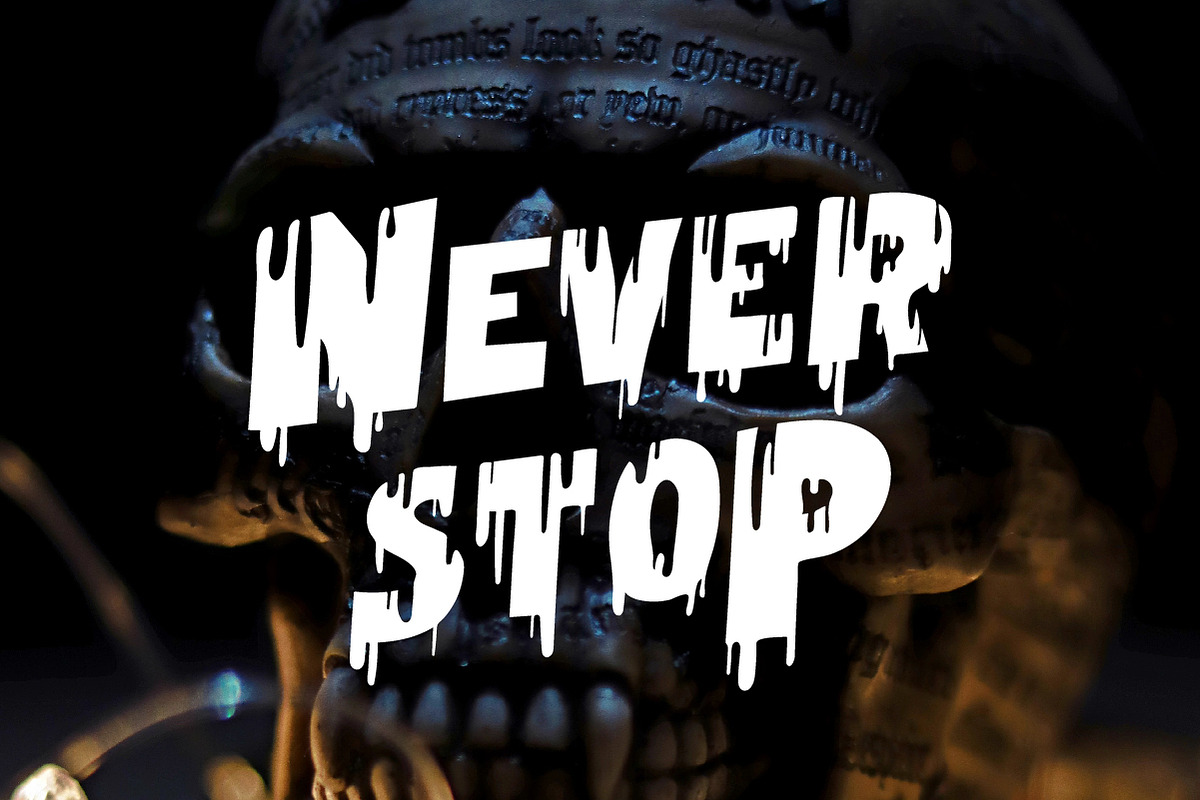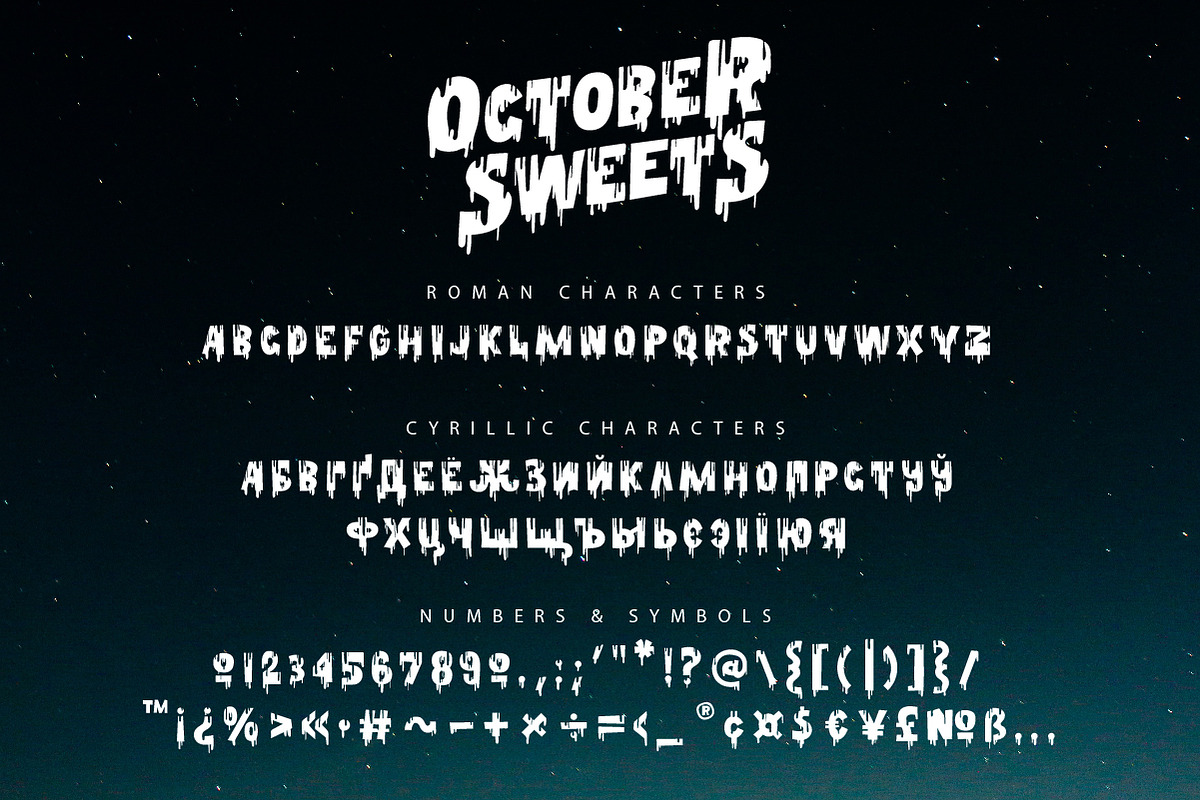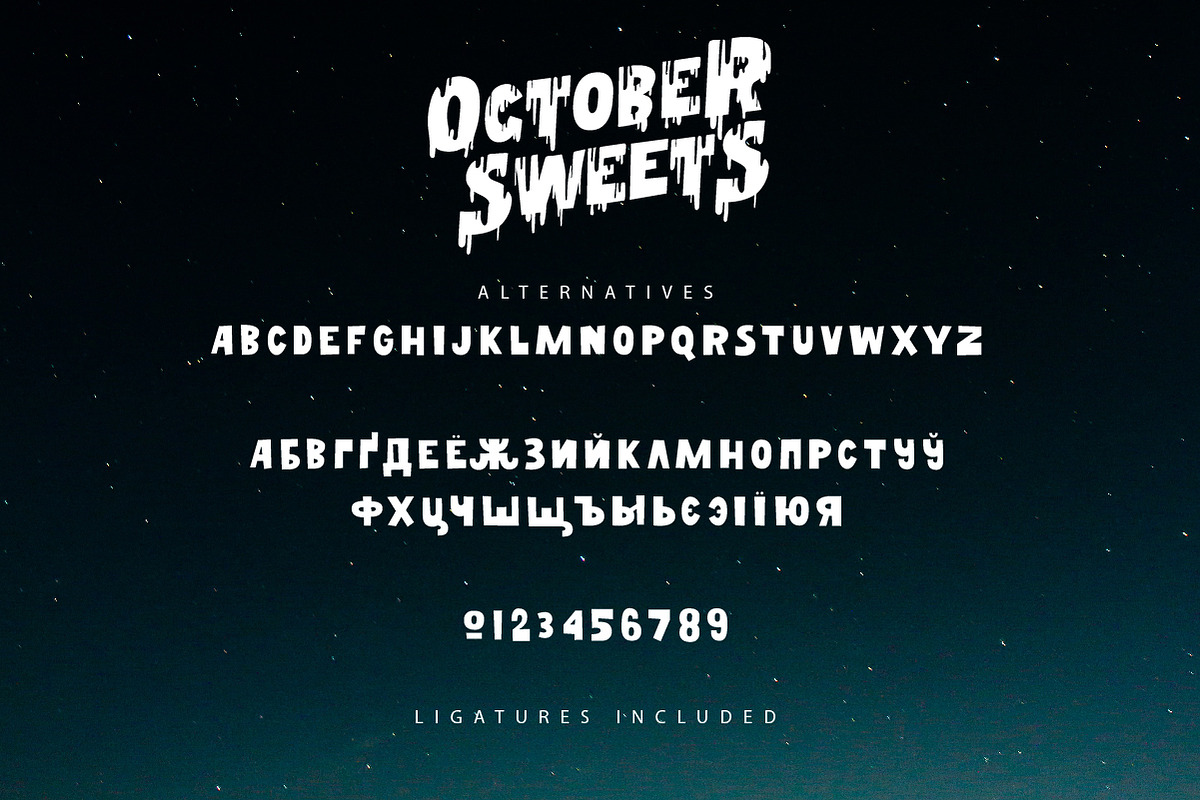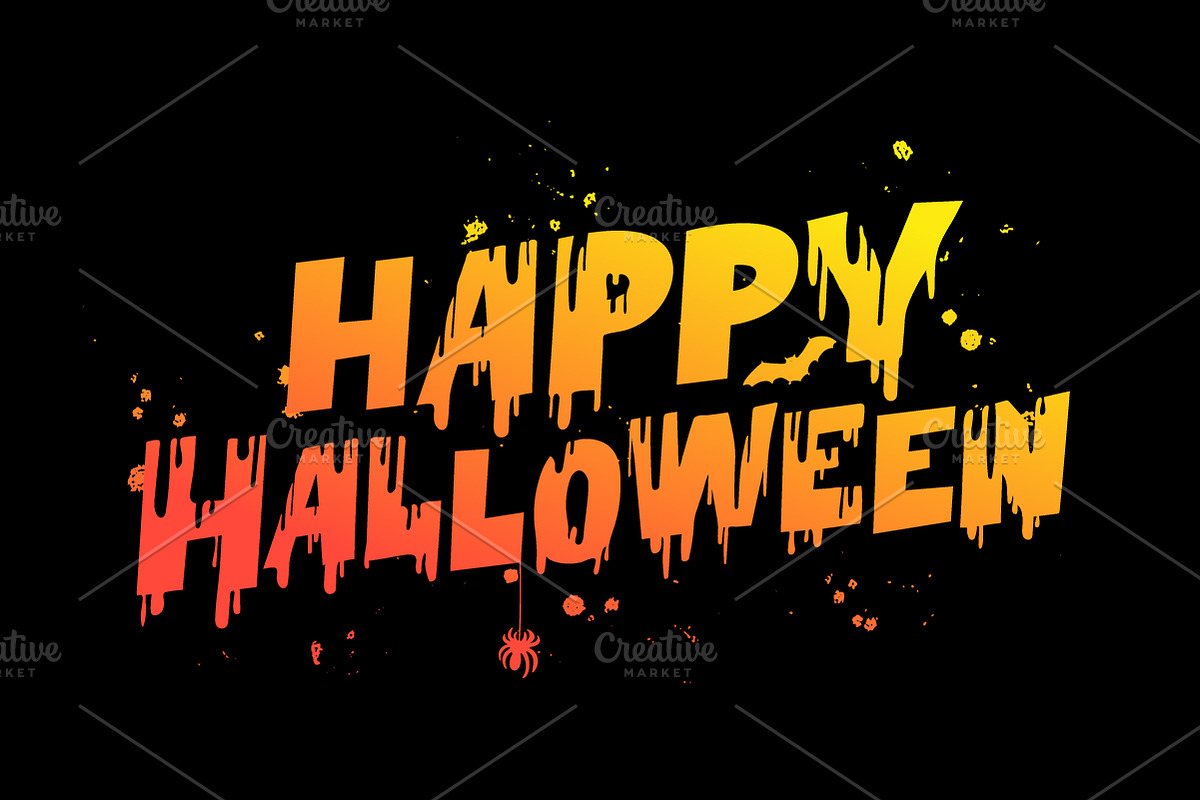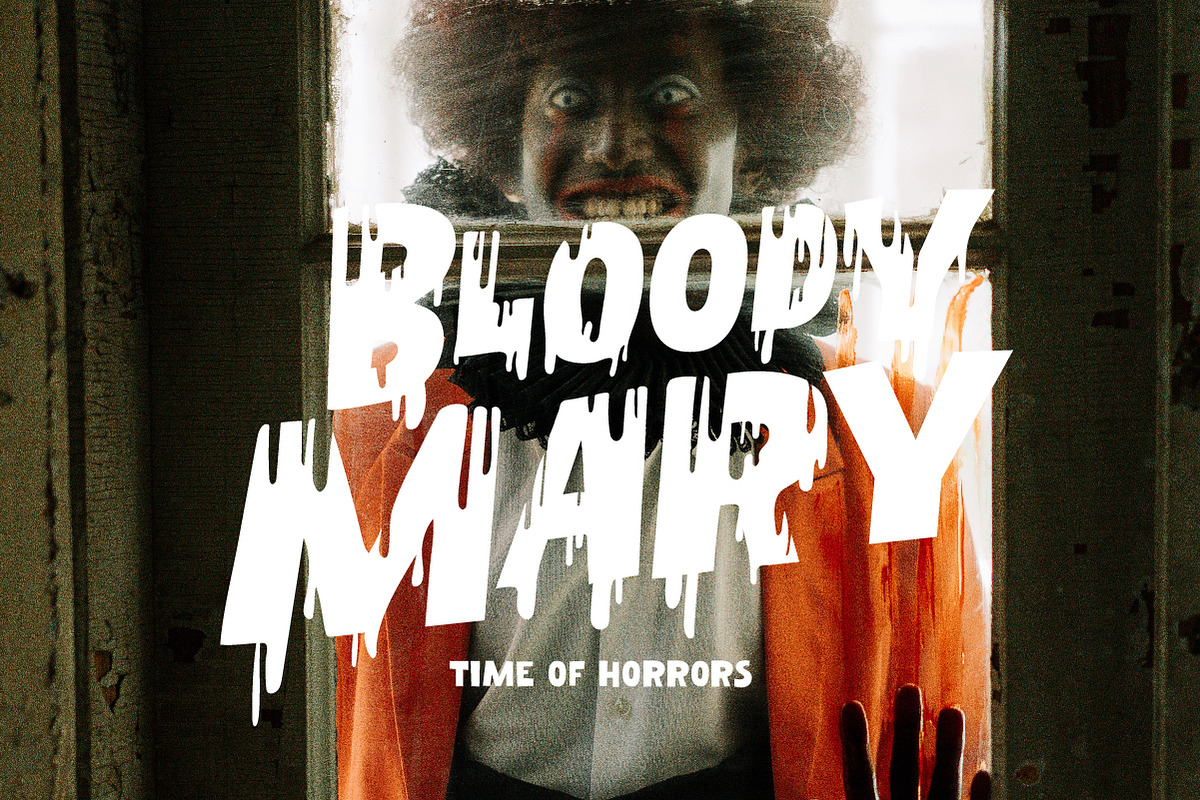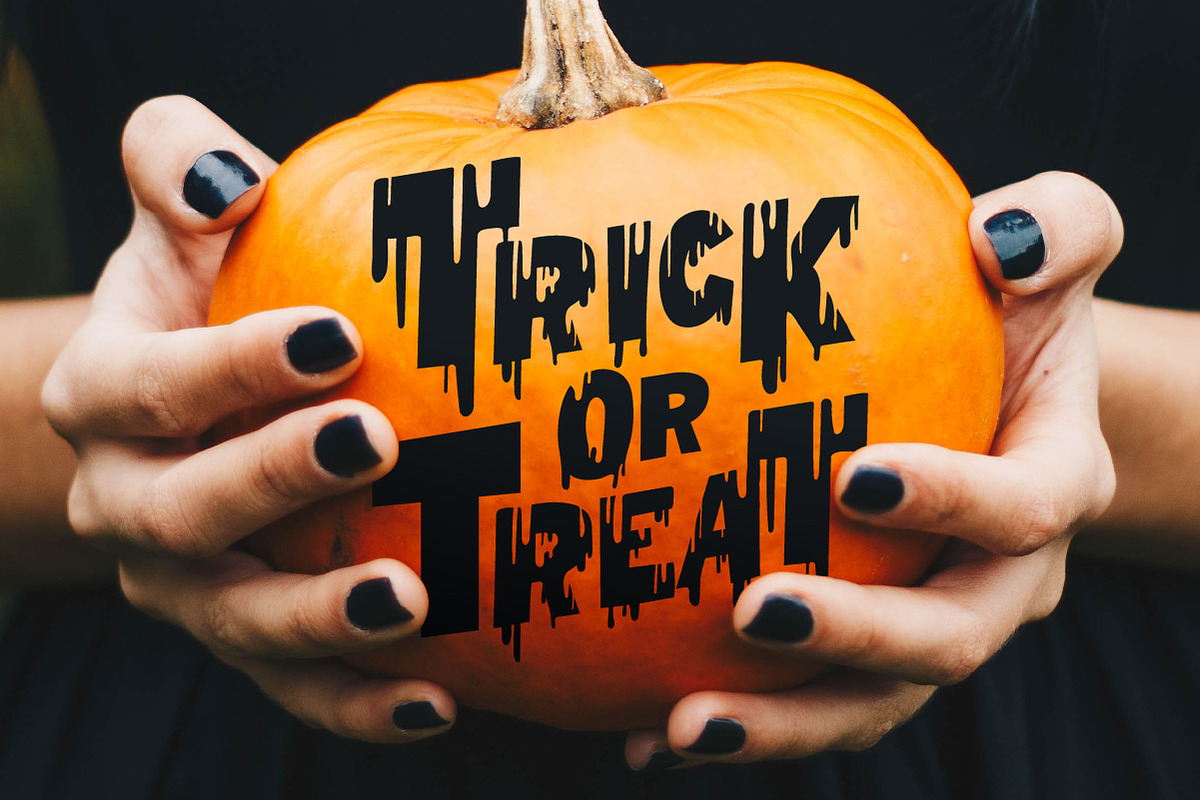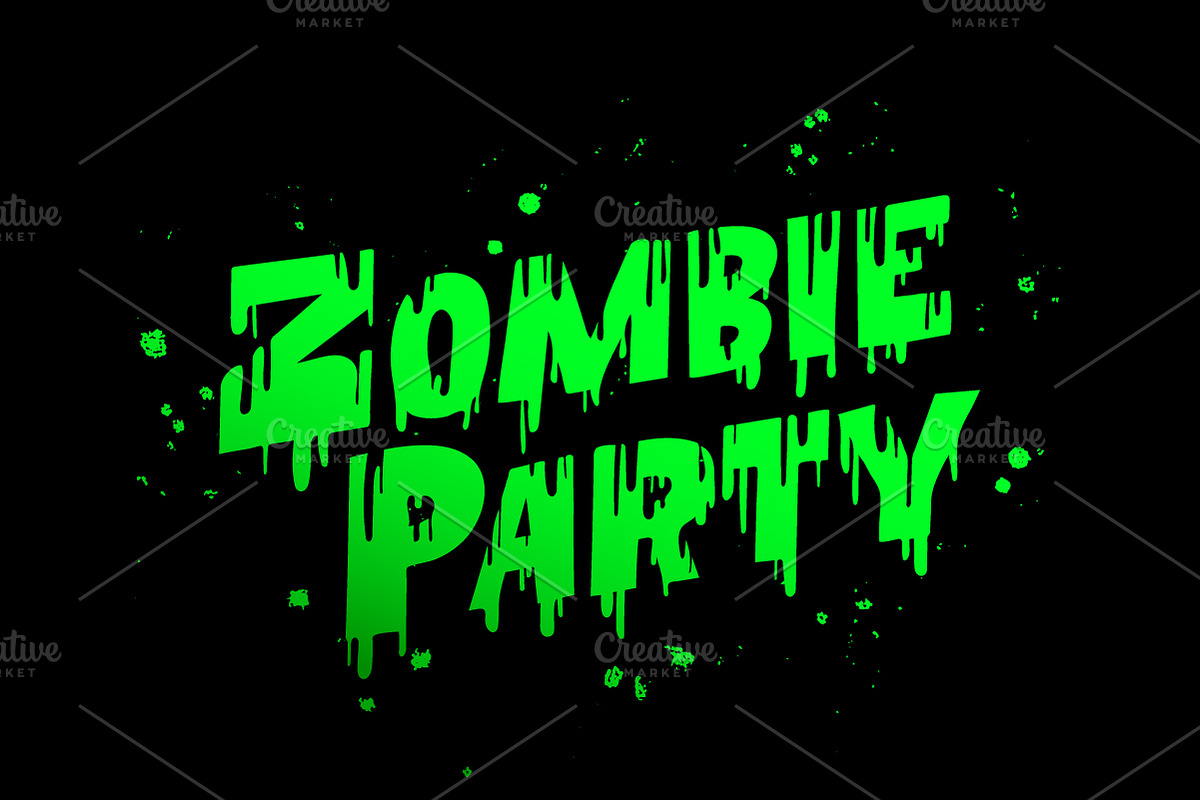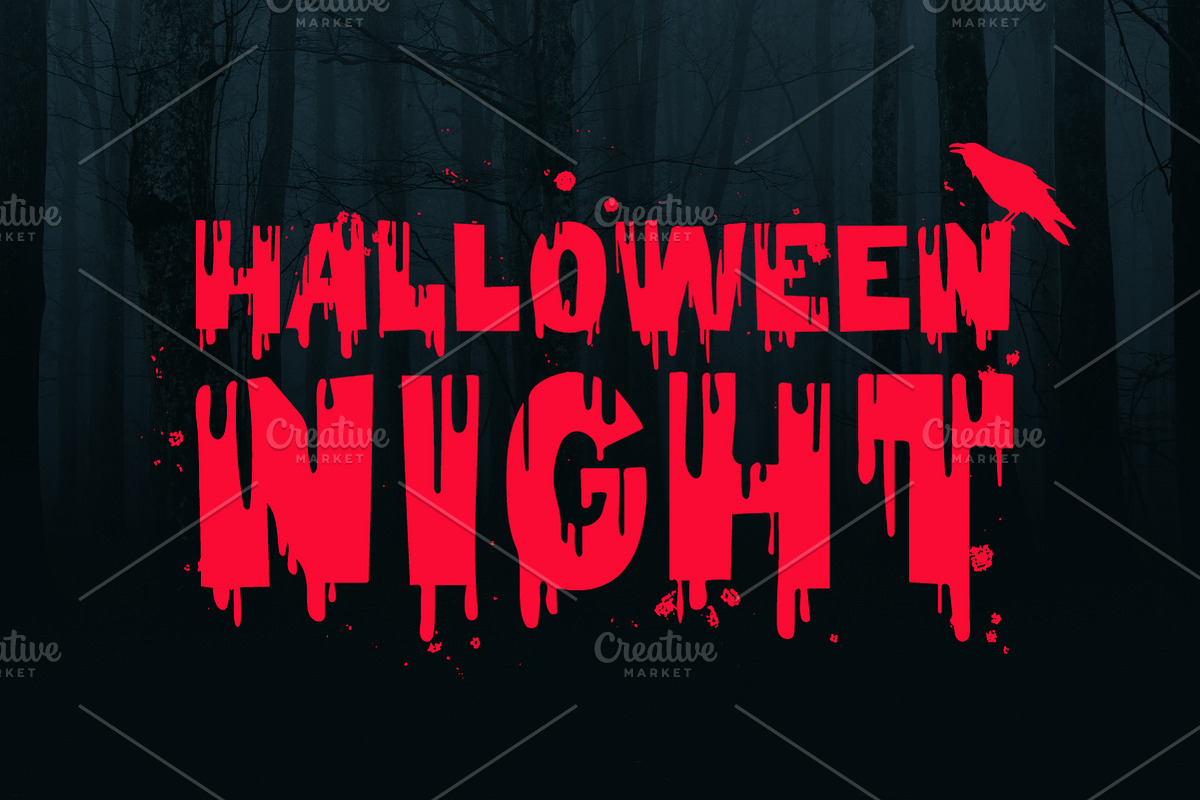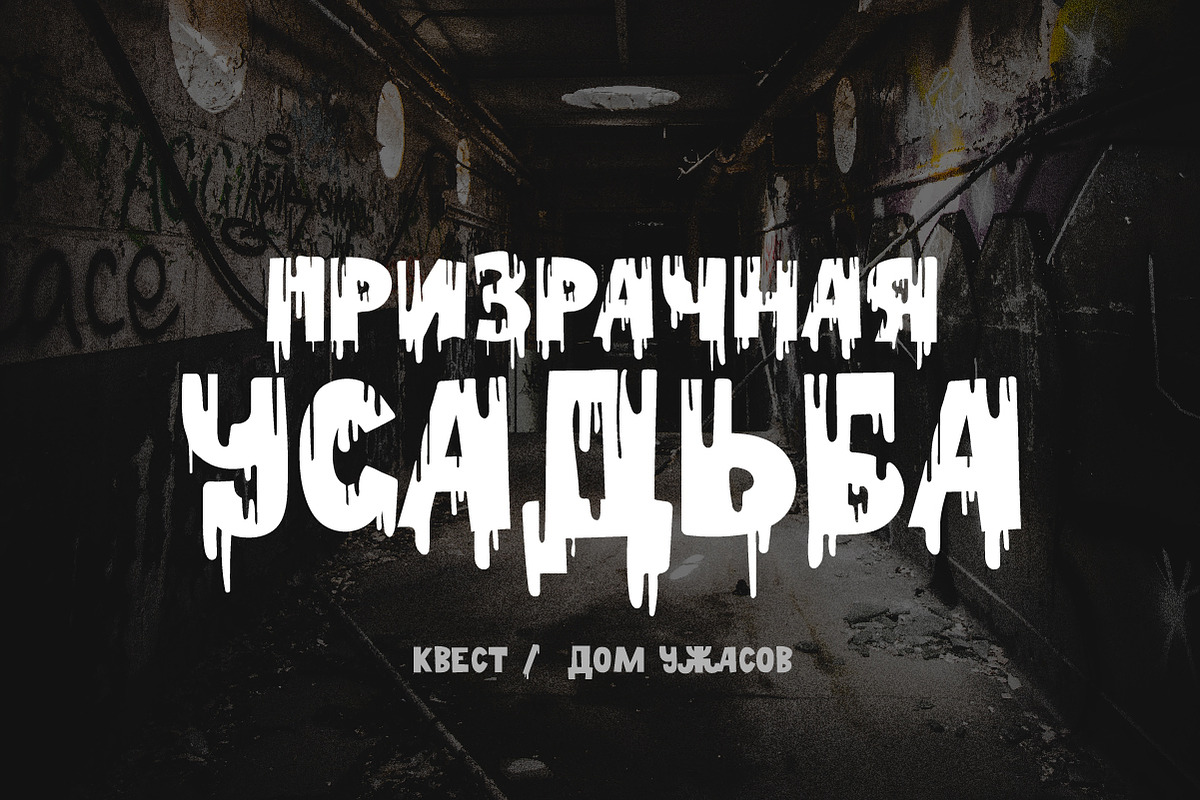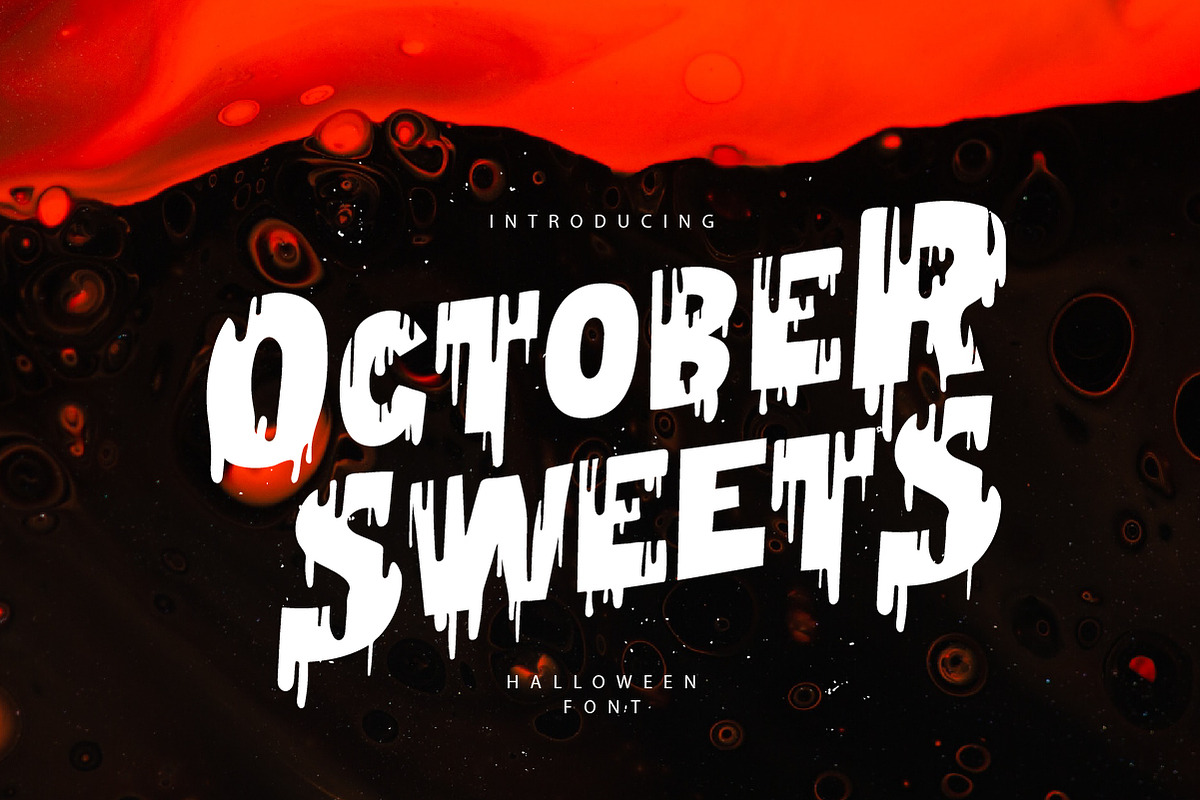
October Sweets
October Sweets is a terribly playful and creepy font. It comes with all caps uppercase and lowercase characters, a set of punctuation marks, numbers, Cyrillic characters, an alternative set of characters and numbers, ligatures and multilingual support.
Ideal for Halloween parties, horror film festivals, product packaging, T-shirts, book covers, quotes, posters, branding projects, etc.